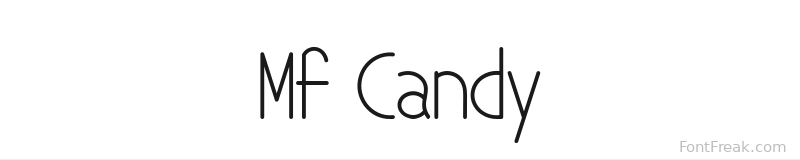
Mf Candy
The Mf Candy font, designed by Misti Hammers, is a delightful display typeface that captures the essence of playful elegance. This font falls into the decorative category, making it an ideal choice for projects that require a touch of whimsy. Its rounded strokes and soft curves convey a sense of friendliness and approachability, while the balanced spacing ensures readability even in larger bodies of text. The overall stroke weight is consistent, providing a smooth visual flow that enhances the font's charm.
Mf Candy is well-suited for a variety of creative applications. It can elevate wedding invitations with its romantic flair, making them feel unique and personal. This font is also a fantastic choice for children's book covers, as its playful aesthetic appeals to younger audiences. Restaurant menus can benefit from its inviting look, enticing diners with a warm, welcoming vibe. Additionally, the Mf Candy font can be used in branding for small businesses that want to convey friendliness and creativity, making it perfect for cafes, bakeries, or boutique shops.
The target audience for Mf Candy includes graphic designers, small business owners, and content creators who are looking for an engaging typeface to enhance their projects. Whether it’s for digital marketing materials or printed designs, this font offers versatility and character.
What truly sets Mf Candy apart is its ability to blend fun with functionality. It captures attention without overwhelming the viewer, making it an excellent choice for those seeking a font that stands out while remaining versatile. For anyone looking to add a cheerful touch to their design work, the Mf Candy font free download is a must-have addition to their typography toolkit.